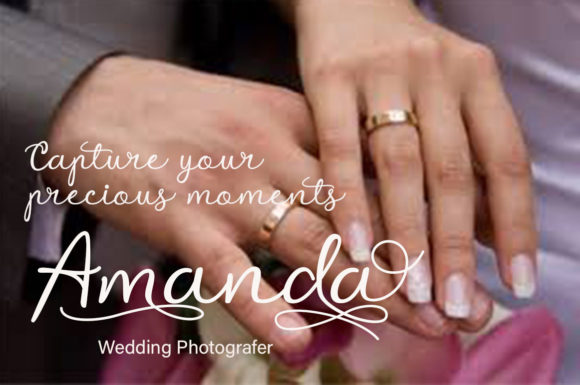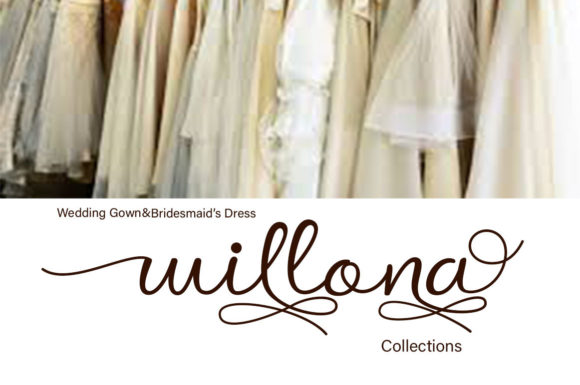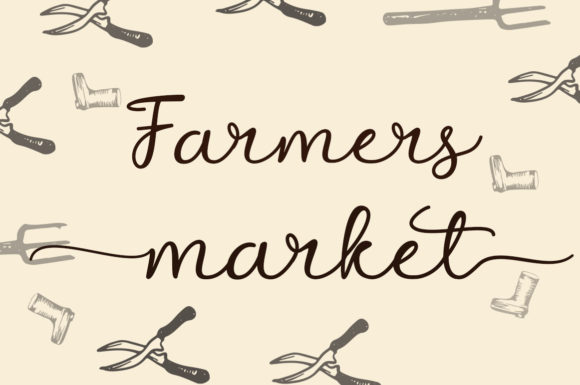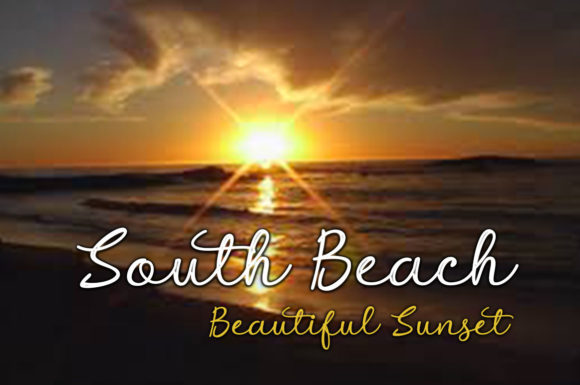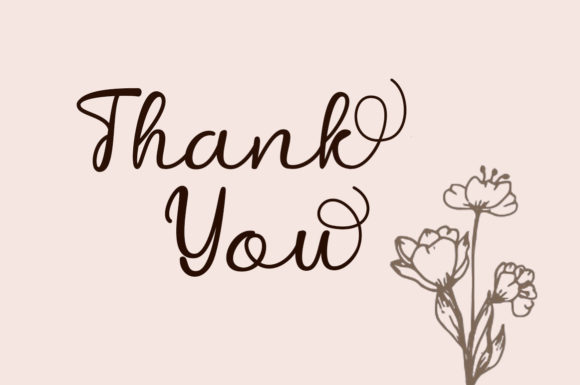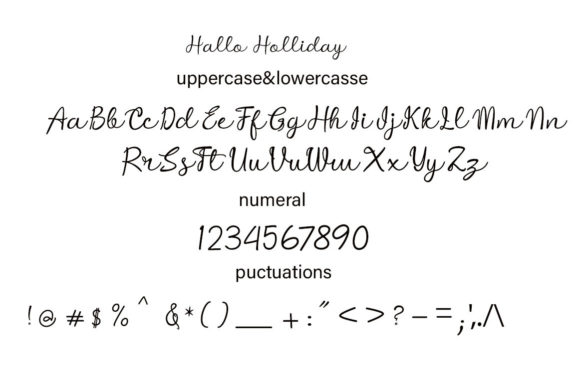
Hallo Holliday Font: Elevate Your Designs with Delicate Elegance
In the world of design, fonts play a crucial role in conveying the tone and aesthetic of a project. For designers and crafters seeking a touch of elegance and sophistication, the Hallo Holliday font is an exceptional choice. This beautiful script font is specifically designed for projects that demand high-quality vibes, such as packaging products, invitation cards, flyers, mockups, event posters, and more.
The Characteristics of Hallo Holliday Font
Hallo Holliday is a delicate script font that boasts a balanced character, making it an excellent fit for a wide range of design applications. Its elegant and refined appearance ensures that it can be used in various contexts, from formal events to commercial branding. The font’s design is characterized by its flowing lines, beautiful swashes, and intricate details, which collectively contribute to its sophisticated and high-end feel.
One of the standout features of the Hallo Holliday font is its PUA (Private Use Area) encoding. This encoding allows designers to access all the glyphs and swashes with ease, providing a seamless and efficient design experience. With PUA encoding, users can effortlessly navigate through the font’s extensive character set, including alternates, ligatures, and swashes, to create stunning and unique designs.
Design Applications for Hallo Holliday Font
The versatility of the Hallo Holliday font makes it suitable for a wide range of design applications. Here are some of the ways designers and crafters can utilize this beautiful font:
• Packaging Products: Add a touch of elegance to your product packaging with Hallo Holliday. Its delicate and refined appearance makes it perfect for luxury brands, cosmetics, and high-end products.
• Invitation Cards: Create stunning invitation cards for weddings, parties, and formal events with Hallo Holliday. The font’s beautiful swashes and intricate details will add a touch of sophistication to your designs.
• Flyers and Brochures: Use Hallo Holliday to create eye-catching flyers and brochures for events, promotions, and marketing campaigns. The font’s elegant appearance will help your designs stand out from the crowd.
• Mockups: Add a touch of realism to your mockups with Hallo Holliday. The font’s delicate appearance makes it perfect for showcasing product designs, logos, and branding materials.
• Event Posters: Create stunning event posters with Hallo Holliday. The font’s bold and elegant appearance makes it perfect for promoting concerts, festivals, and formal events.
Why Choose Hallo Holliday Font?
With so many fonts available, why choose Hallo Holliday? Here are some compelling reasons:
• Unique and Elegant Design: Hallo Holliday boasts a unique and elegant design that will elevate your designs and set them apart from the competition.
• High-Quality Vibes: The font’s delicate and refined appearance ensures that it can be used in high-end designs, such as luxury branding, packaging, and marketing materials.
• PUA Encoding: The font’s PUA encoding makes it easy to access all the glyphs and swashes, providing a seamless design experience.
• Versatility: Hallo Holliday can be used in a wide range of design applications, from packaging products to event posters.
In conclusion, the Hallo Holliday font is an exceptional choice for designers and crafters seeking a touch of elegance and sophistication in their designs. Its delicate script font, beautiful swashes, and PUA encoding make it perfect for high-end designs, such as packaging products, invitation cards, flyers, mockups, event posters, and more. With its unique and elegant design, Hallo Holliday is sure to elevate your designs and set them apart from the competition.